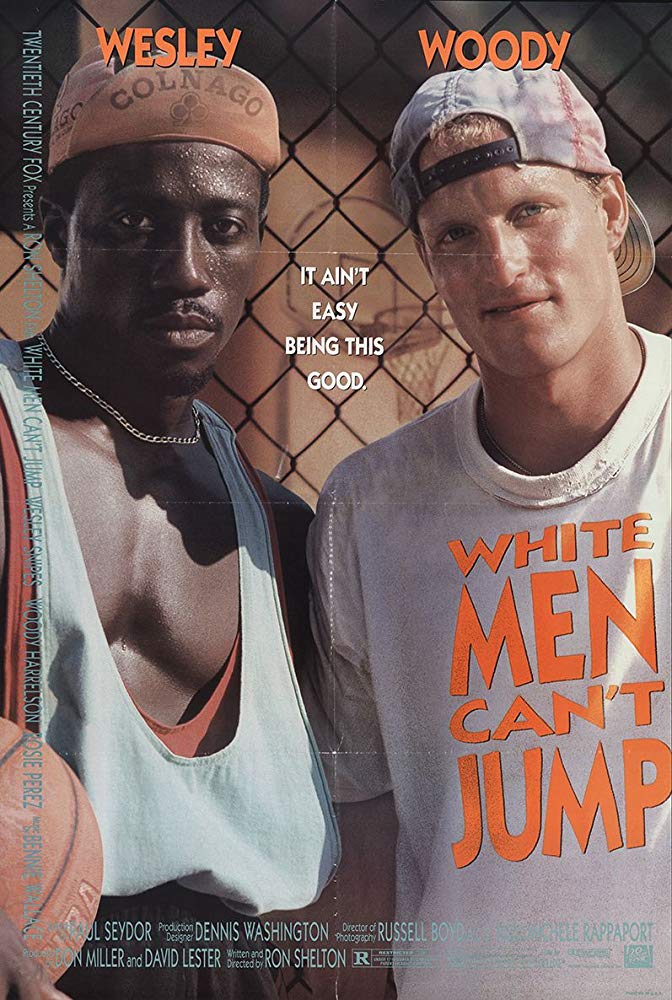
White Men Can't Jump Font
ComedyWhite Men Can’t Jump is a 1992 American sports comedy-drama film starring Wesley Snipes and Woody Harrelson as streetball hustlers.
The poster showcases the Kabel Bold font, a geometric sans-serif design by German designer Rudolf Koch. It was released by Klingspor foundry in 1927 and named in honor of the trans-Atlantic telephone cable.